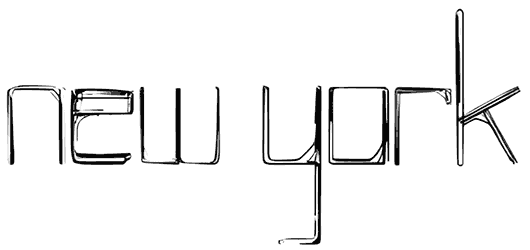
New York Font
Just in case you want to stimulate the audience by sharing a sense of jauntiness, smudgy, personalization, or grunge with them, we have a special offer, such as New York, for you.
This font can be included in any kind of graphic content, like movie posters, logos, flyers, magazines, or stationery. In a nutshell, we strongly recommend you overlook the lack of uppercase letters or numbers and pick up this sketch font for your professional needs.